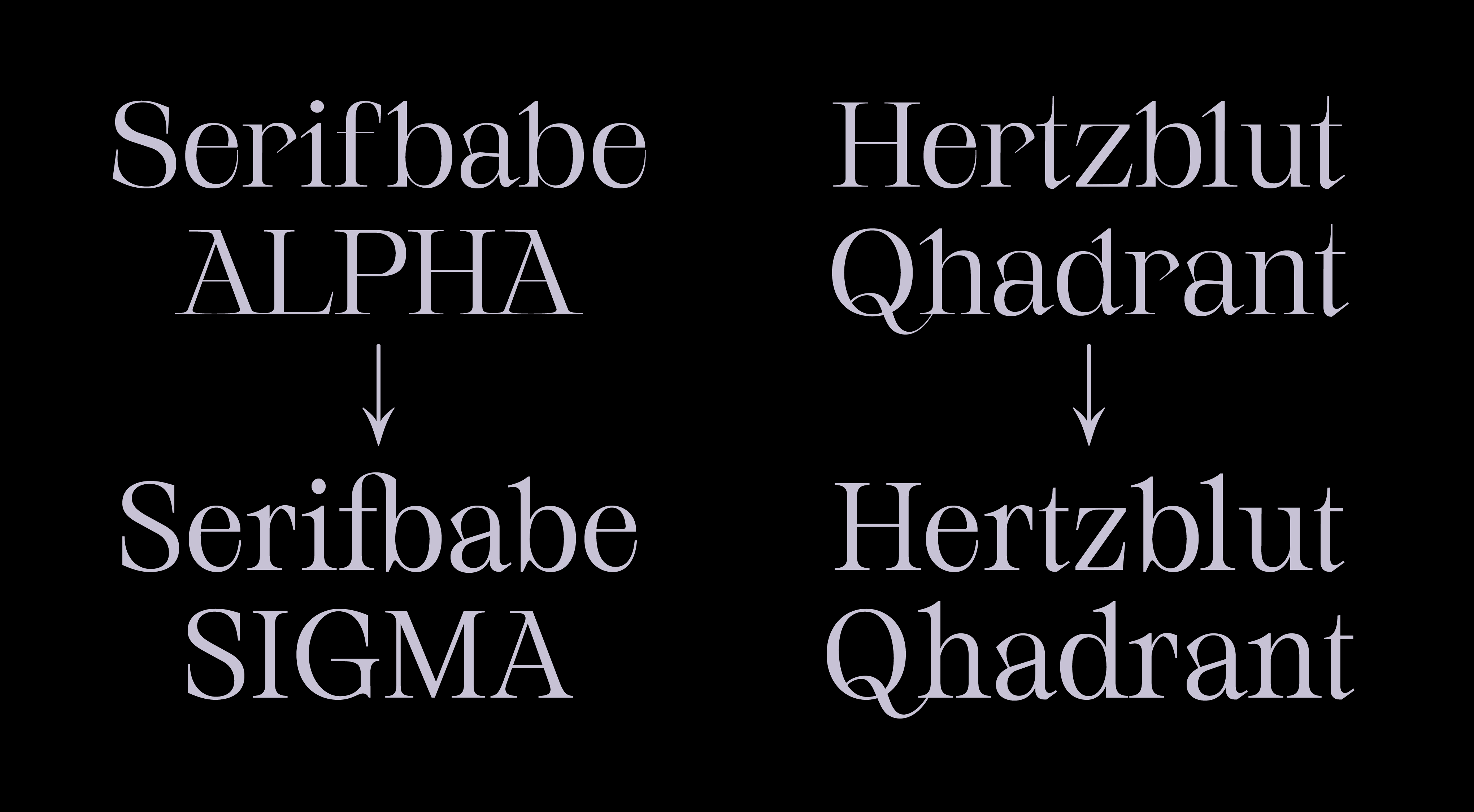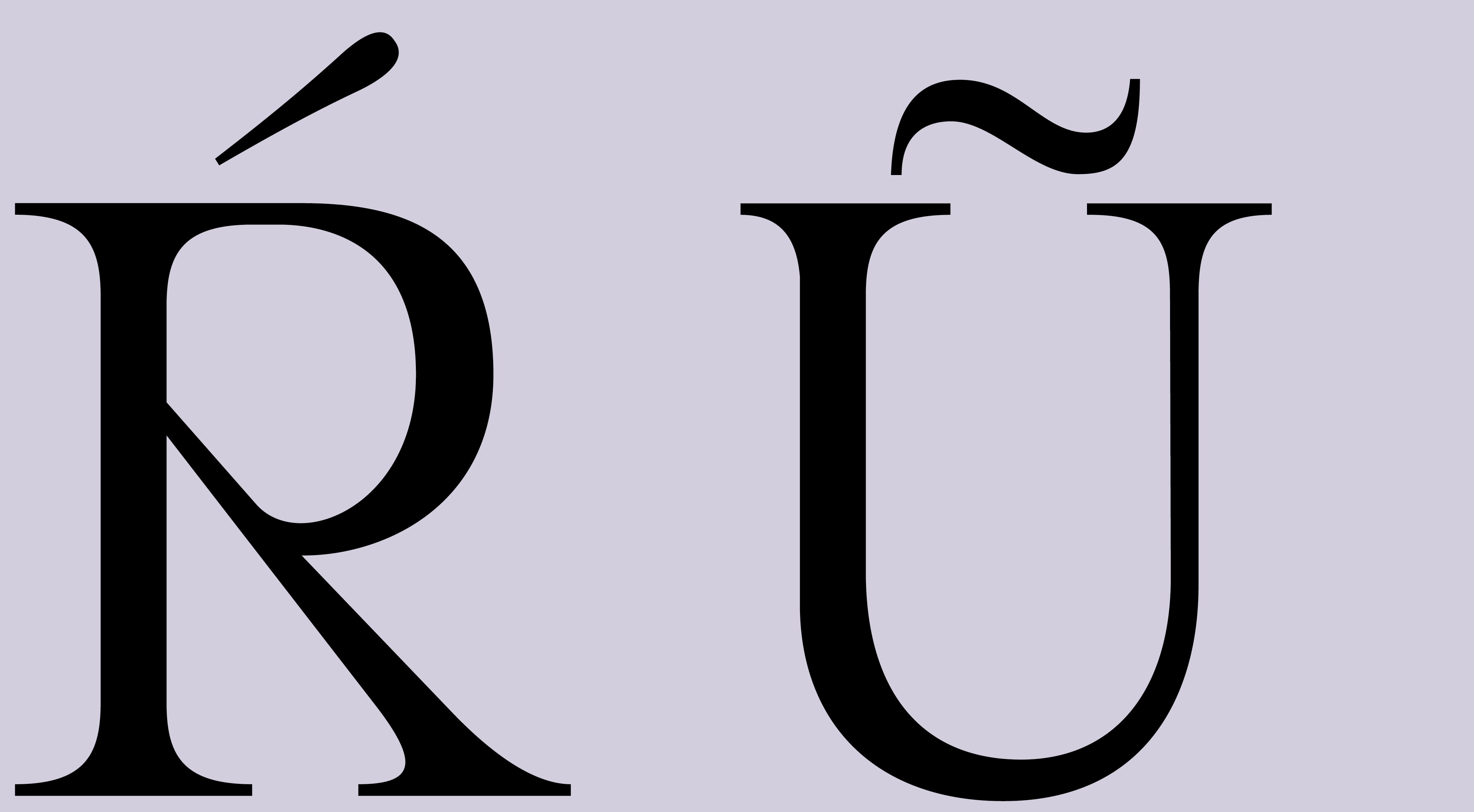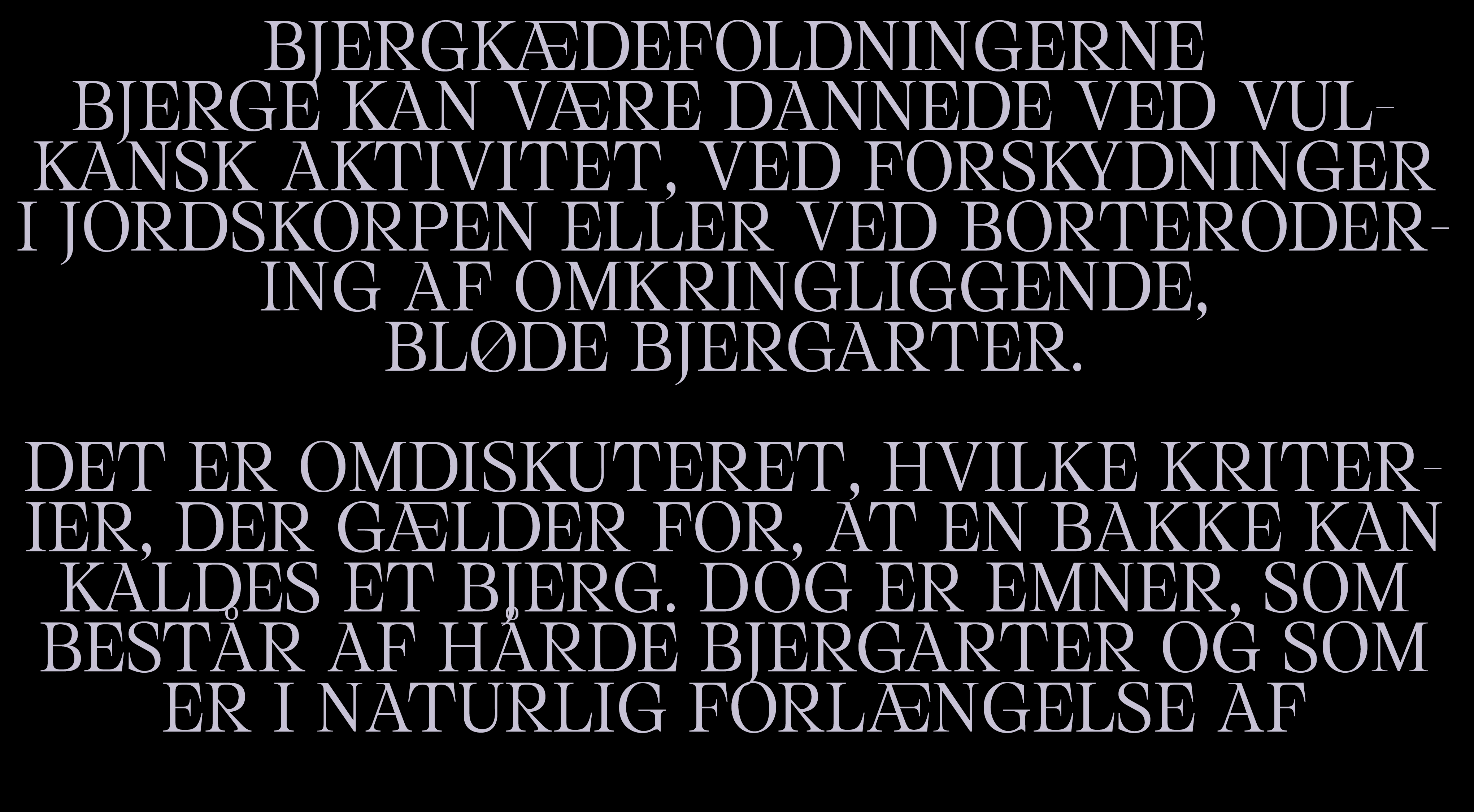
Serifbabe
Serifbabe is a retail typeface in 3 weights.
Serifbabe was created out of a feeling of "being too much", maybe she is an Alter Ego of mine.
Serifbabe ALPHA (2020)
Serifbabe is no longer a melancholic teenager, she’s in her twenties now, becoming the person she was meant to be — a bit more eccentric and way more nuanced in personality.
Serifbabe ALPHA Italic (2020) Serifbabe has learned to articulate her needs and wishes – when she asks for things now, she is specific, willfull, but open and careful.
Serifbabe SIGMA (2024)
(i think she had botox or whatever teenage girls in their 30s like to do for fun)